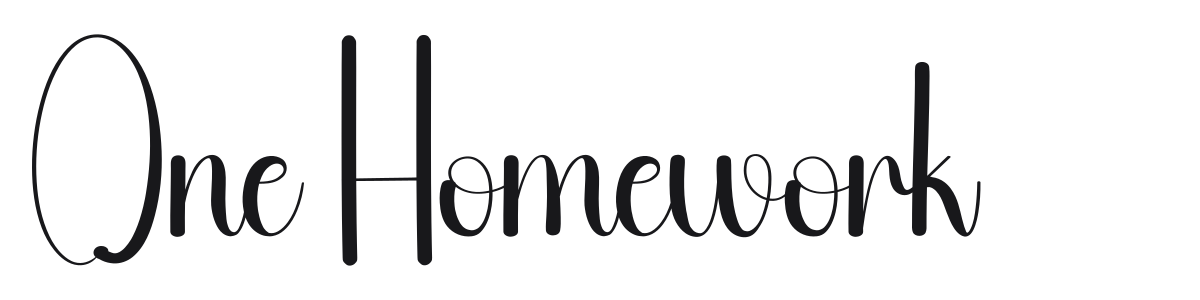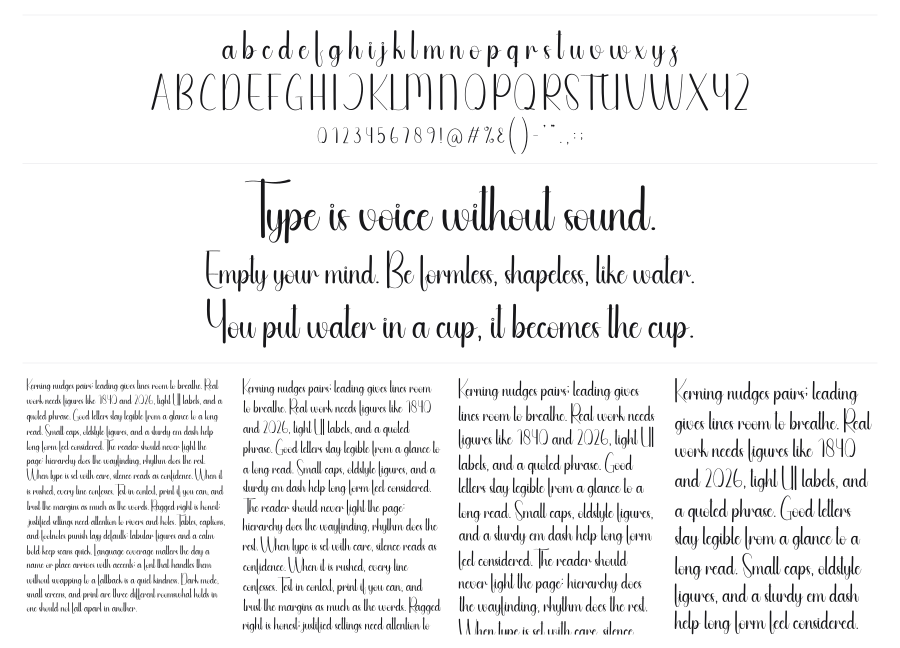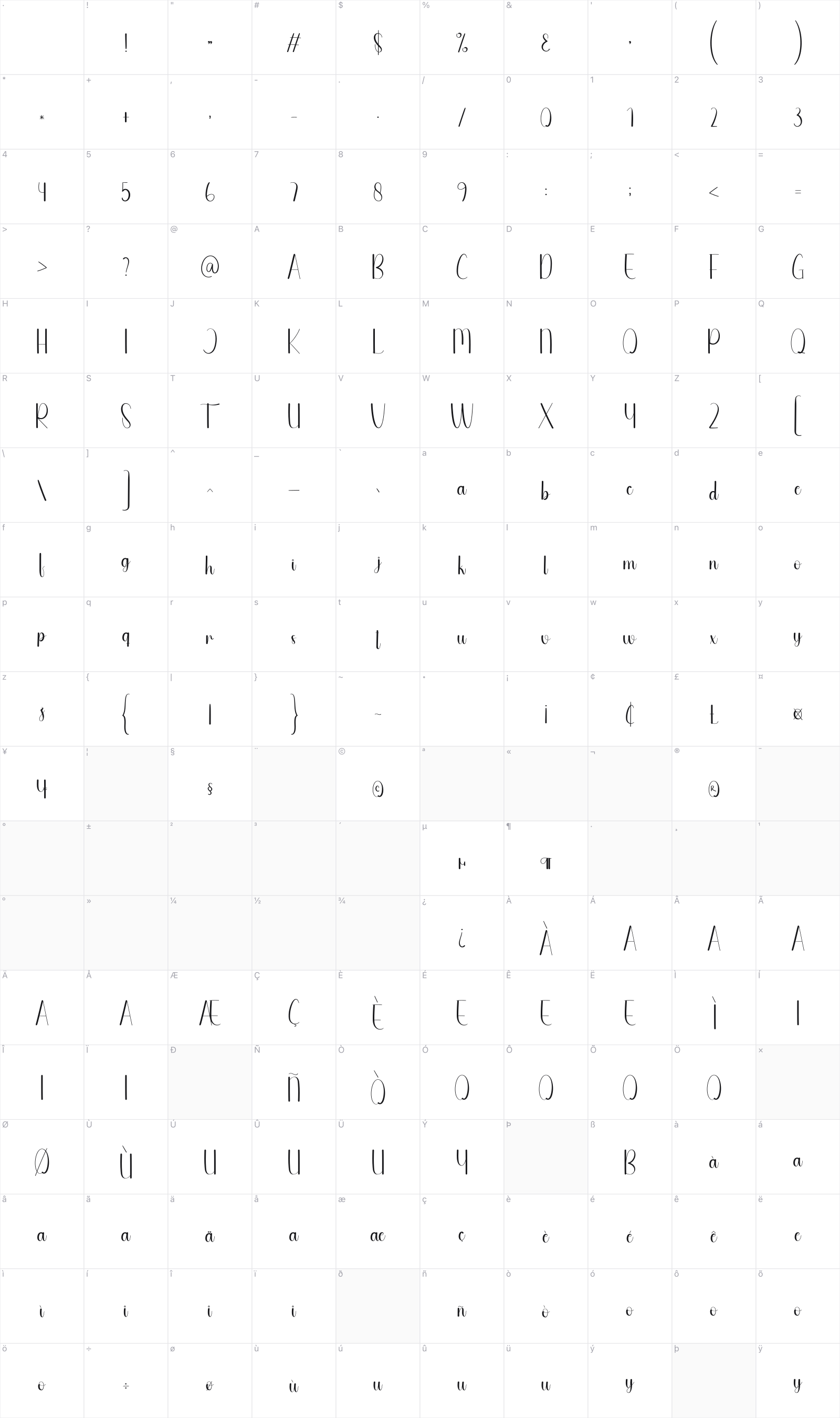
One Homework
One Homework is a bouncy casual script with the warmth of hand-lettered calligraphy and the charm of a personal note. Thick downstrokes contrast against wispy hairline connections, giving it that high-energy, ink-on-paper quality popular in modern wedding stationery. The lively baseline bounce keeps it feeling spontaneous without sacrificing legibility at display sizes.